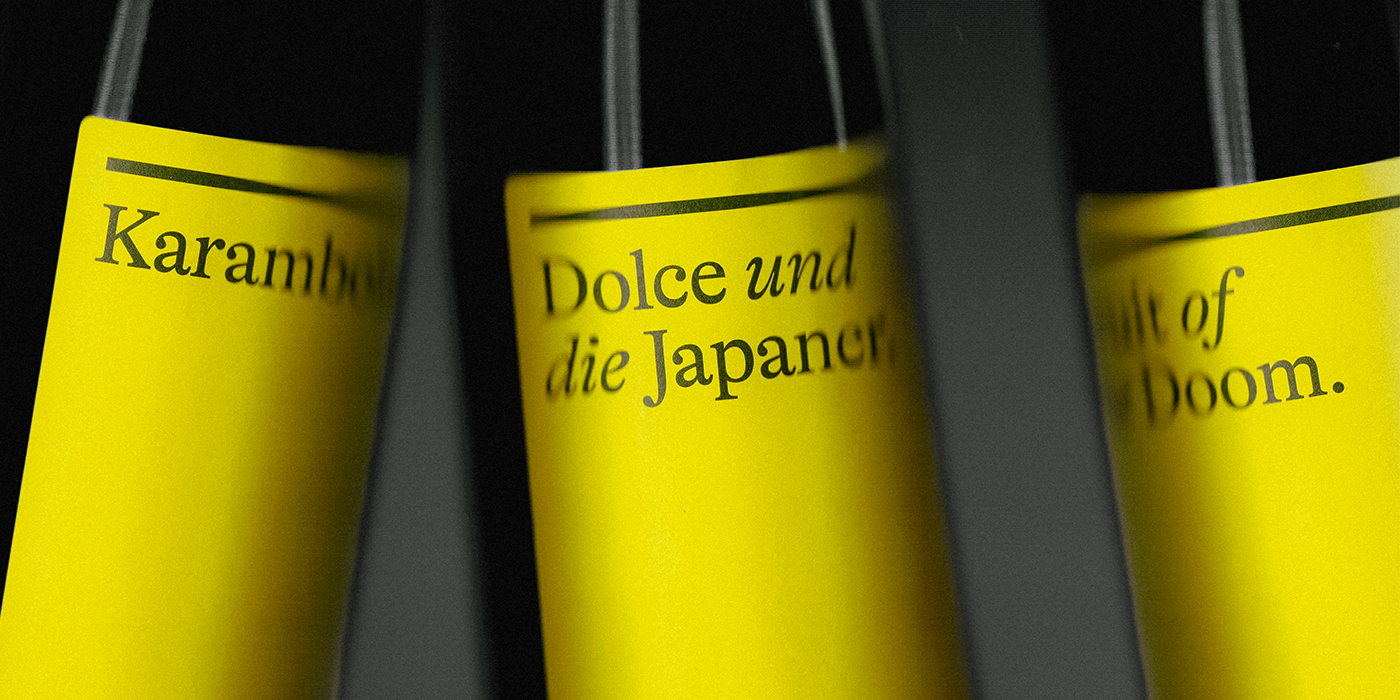
From its conception, the Austrian Wine Mafia (AWM) project started with a clear creative challenge. It needed to make a bold, unique statement in a market often constrained by traditional rules. The collaboration brings together Matthias Warnung, a dynamic young winemaker, and the siblings Magdalena and Lorenz from Allram Winery, a family-run estate in Austria’s Kamptal region, renowned for its ethically focused viticulture.
Their goal was to establish an experimental playground for new ideas. This meant a conscious, deliberate departure from the usual stuffy rules of wine branding. AWM holds its own set of values, much like the syndicate it is playfully named after. This need for a strong initial identity sparked this design project skillfully resolved by designer and art director Lukas Diemling.
Judging a bottle by its label
The visual solution developed by designer Lukas Diemling consciously steers away from standard wine cues. Each wine is intended to be an experienced narrative. It leans into the structure of classic book design instead. Considering Austria’s classic literary culture, this concept recalls the world of pared back, simplified book covers while creating contrast through a striking use of color. A bright yellow tone becomes the protagonist of the story, assuring the boxes and labels don’t go unnoticed, emphasizing the rebellious heart of the AWM project and the playful nature of the product.
A distinct typographic pairing
Contrast is not only found in the narrative of AWM, it also enfolds the selection of the two typefaces that work together to reinforce the identity. The primary typeface is GT Alpina designed by Reto Moser for Grilli Type. This modern serif is known for its charming and slightly unconventional details, balancing authority with an open, accessible feel.
It is paired with Neue Haas Grotesk Display, a font included in the restoration of Miedinger’s original design distributed by Commercial Type. This choice brings a crisp, no-nonsense foundation to the text. This strategic pairing ensures a visual system that is both sophisticated and ready for high-impact communication.
The force behind the name
AWM is driven by the belief that great wine should be fun and accessible to everyone. The team is not tied to ancient dogmas or overly complicated processes, focusing instead on producing great, hand-stretched natural wines without the pretension. This spirit of experimentation and approachability is key, and this spirit is what enabled the design to be as rebellious and lighthearted as the product itself.
The successful look of AWM is the work of designer and art director Lukas Diemling. Based in Austria, Diemling‘s approach is rooted in clean, impactful communication with a focus on typography-driven identities that feel both classic and contemporary. Covering fields of branding, packaging, typography, still life photography, print design and digital environments, he’s an expert in creating visual systems that are enduring and emotionally engaging.